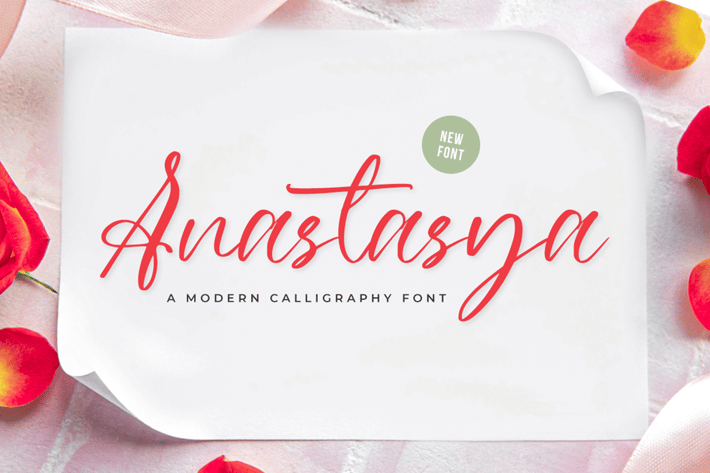
Anastasya - Fashion Font
Anastasya is an elegant and dainty handwritten font that features sweet and delicate swashes. This original look will appeal to a wide range of crafty ideas, from letterheads and titles, to stationery.